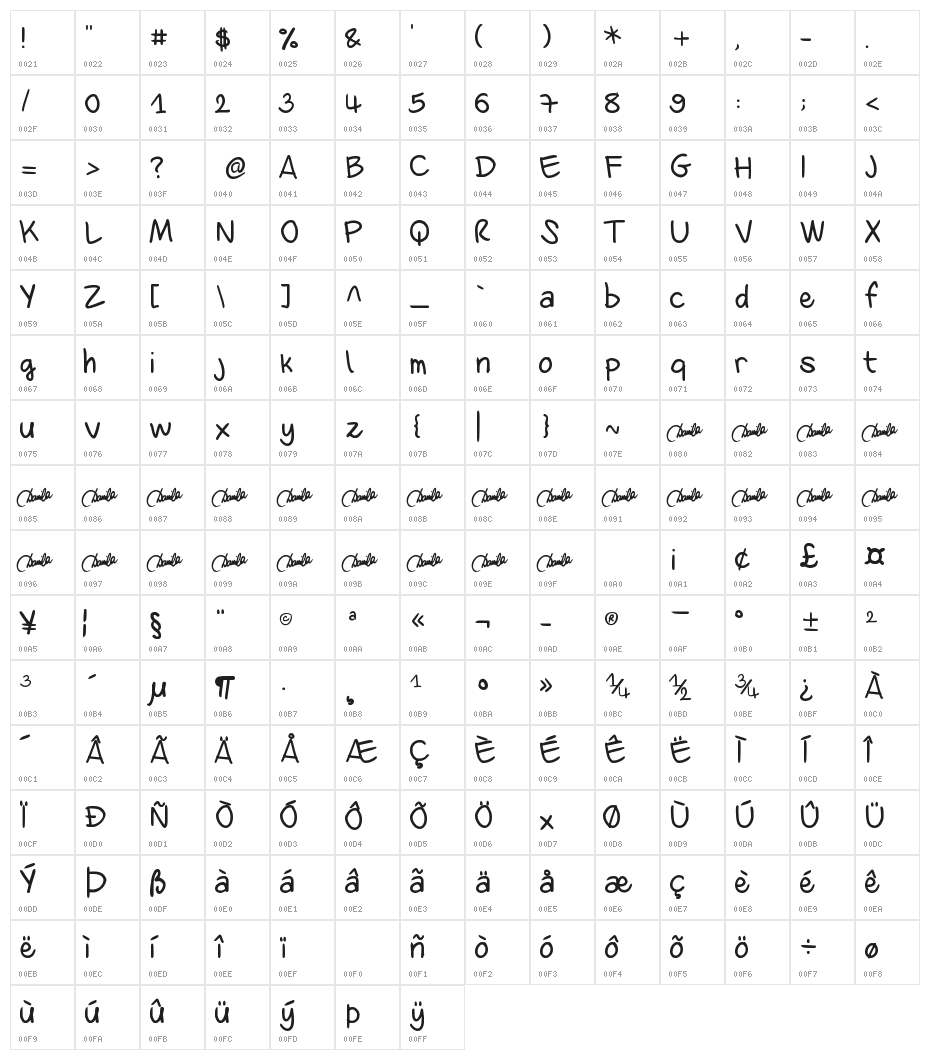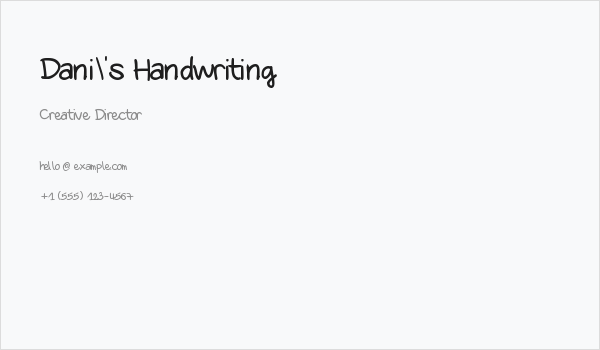
Dani's Handwriting Font
Dani's Handwriting Description
This font exudes a casual and playful handwritten style, characterized by its smooth and rounded letterforms. The strokes are consistent in width, giving it a uniform appearance that enhances readability. The uppercase and lowercase letters maintain a cohesive look, with slightly exaggerated curves and loops that add a touch of whimsy. The numerals and special characters are crafted with the same attention to detail, ensuring they blend seamlessly with the alphabet. This font's informal nature makes it ideal for projects that require a personal touch, such as greeting cards, invitations, and children's books.
| Use Case | Headlines, Informal text, Personal notes |
| Proposed Projects | Ideal for greeting cards, invitations, children's books, and personal notes. |